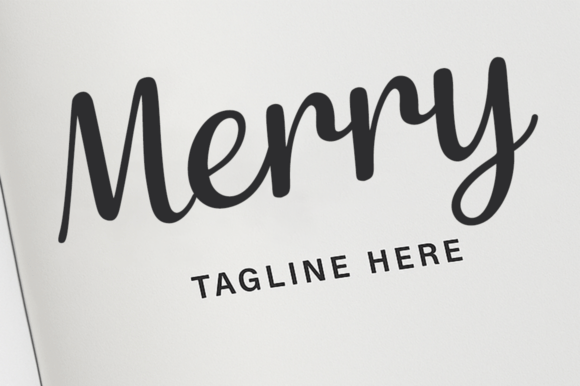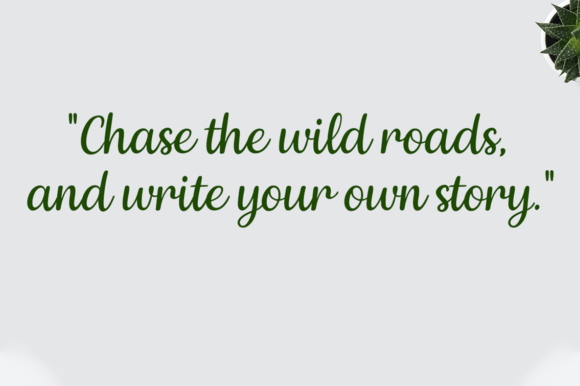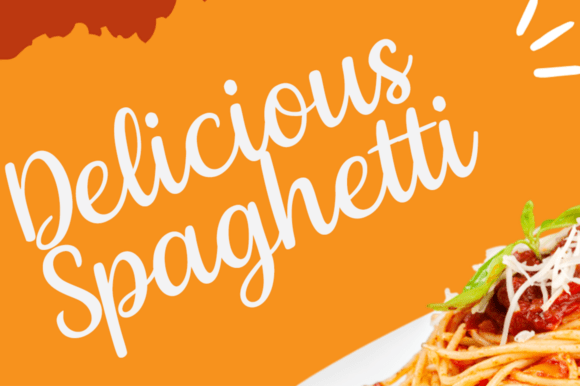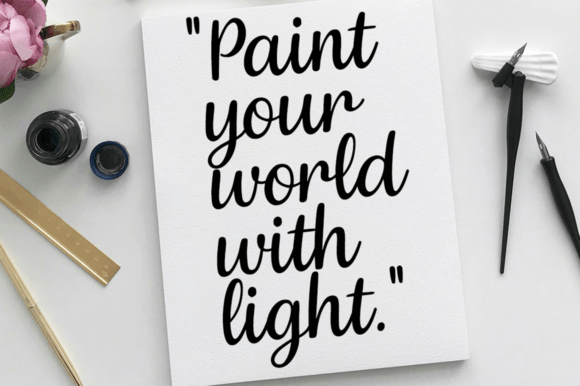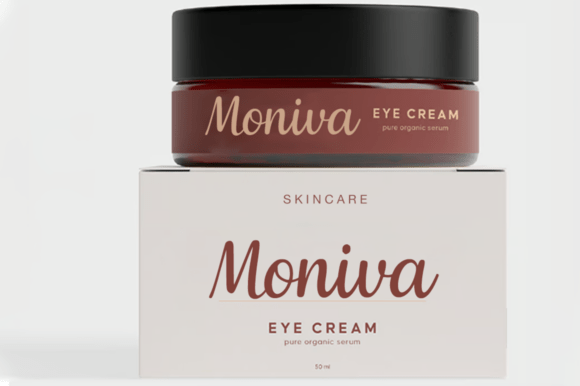
Introducing Elvaira Font: Elevate Your Designs with Elegance and Sophistication
In the world of typography, a well-crafted font can make all the difference in elevating your designs to new heights. Elvaira Font is a refined and contemporary script font that embodies the essence of natural handwriting, offering a perfect blend of elegance and readability. With its smooth curves and graceful strokes, Elvaira is poised to become a go-to choice for designers and crafters seeking to add a touch of sophistication to their projects.
The Characteristics of Elvaira Font
Elvaira Font boasts a clean, flowing style that lends itself beautifully to a wide range of design applications. Its harmonious letterforms and versatile aesthetic make it an excellent choice for both digital and print use. Whether you’re working on branding and logo design, invitations and greeting cards, packaging and product labeling, or quotes, headlines, planners, and social media visuals, Elvaira is the perfect companion to help you achieve your creative vision.
Design Applications for Elvaira Font
One of the standout features of Elvaira Font is its incredible versatility. Here are just a few examples of how you can use this beautiful script font to elevate your designs:
- Branding and Logo Design: Create a lasting impression with Elvaira’s elegant and sophisticated charm. Use it to craft a unique logo that reflects your brand’s personality and values.
- Invitations and Greeting Cards: Add a touch of warmth and personality to your invitations and greeting cards with Elvaira’s smooth, flowing script.
- Packaging and Product Labeling: Stand out on store shelves with Elvaira’s clean and polished aesthetic. Use it to create eye-catching labels and packaging that showcases your product’s unique character.
- Quotes, Headlines, and Social Media Visuals: Make a statement with Elvaira’s elegant script. Use it to create stunning quotes, headlines, and social media visuals that capture your audience’s attention.
- Planners and Stationery: Add a touch of sophistication to your planners, journals, and stationery with Elvaira’s refined and contemporary style.
Why Choose Elvaira Font?
So, what sets Elvaira Font apart from other script fonts on the market? Here are just a few reasons why designers and crafters are falling in love with Elvaira:
- Elegance and Readability: Elvaira strikes the perfect balance between elegance and readability, making it suitable for a wide range of design applications.
- Versatility: Whether you’re working on digital or print projects, Elvaira’s clean and polished aesthetic ensures that your designs will look stunning in any context.
- Harmonious Letterforms: Elvaira’s letterforms are carefully crafted to work in harmony, creating a beautiful and cohesive look that’s sure to impress.
Tips for Using Elvaira Font
To get the most out of Elvaira Font, here are a few tips to keep in mind:
- Experiment with Font Sizes: Elvaira looks stunning in a variety of font sizes, from large headlines to smaller body text.
- Pair with Other Fonts: Try pairing Elvaira with other fonts to create a unique and visually appealing contrast.
- Use in Combination with Images: Elvaira’s clean and polished aesthetic makes it a perfect match for images and graphics.
| Font Name | Elvaira Font |
| Author | cocodesign |
In conclusion, Elvaira Font is a refined and contemporary script font that offers a perfect blend of elegance and readability. With its smooth curves and graceful strokes, Elvaira is poised to become a go-to choice for designers and crafters seeking to add a touch of sophistication to their projects. Whether you’re working on branding and logo design, invitations and greeting cards, packaging and product labeling, or quotes, headlines, planners, and social media visuals, Elvaira is the perfect companion to help you achieve your creative vision.